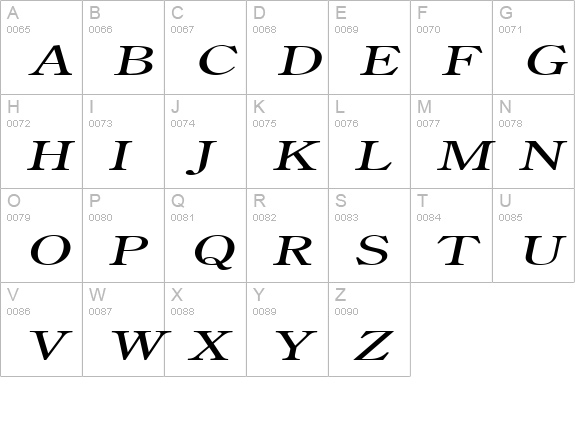
Cento Extended Italic Font Details
Cento Extended Italic is a distinctive, extended-width, italic variant in the Cento typeface family \xE2\x80\x94 well suited to design and typography projects.
Cento Extended Italic font is a modern and stylish typeface that exudes elegance and sophistication. Its sleek design and slanted appearance make it perfect for adding a touch of flair to any project. The italicized characters give a sense of movement and dynamism, making text come alive on the page. This font is not only visually pleasing but also highly versatile, suitable for a wide range of design applications including branding, advertising, and editorial design. Whether you're looking to create eye-catching headlines or elegant body text, Cento Extended Italic font has got you covered. Best of all, this font is available for free download at FontsMarket.com, making it easily accessible to designers and creatives looking to enhance their projects with a touch of style. Don't miss out on the opportunity to elevate your designs with the beautiful and versatile Cento Extended Italic font.